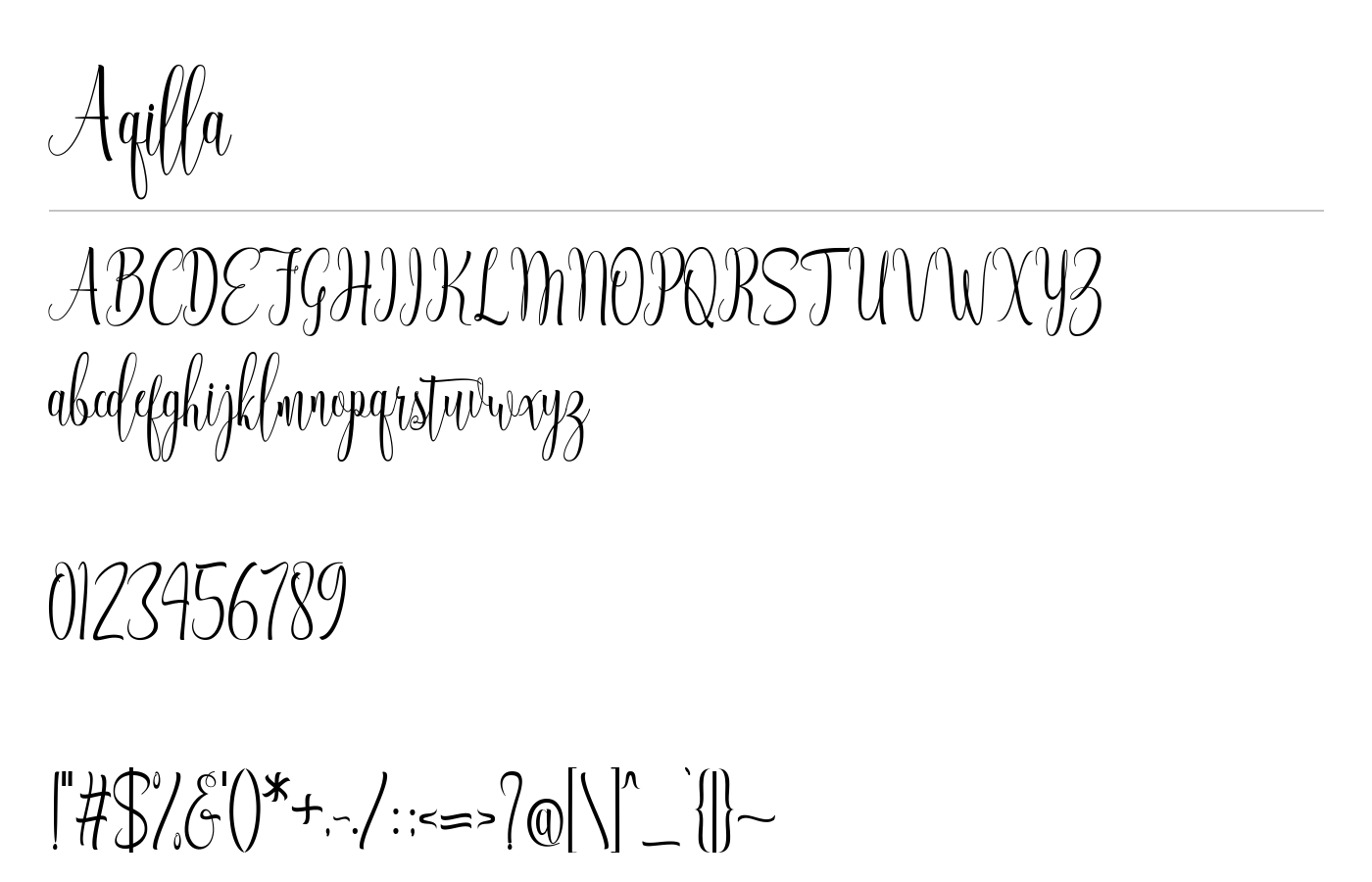
Aqilla is an elegant, narrow script font characterized by its tall, delicate letterforms and flowing, calligraphic strokes. Its fine hairlines and whimsical curves create a sophisticated yet playful feel, making it ideal for stylish invitations, fashion branding, and decorative headings where a touch of charm and grace is desired. This font works best in designs that aim to combine refinement with a personal, handcrafted touch.
Aqilla Font
About Aqilla Font